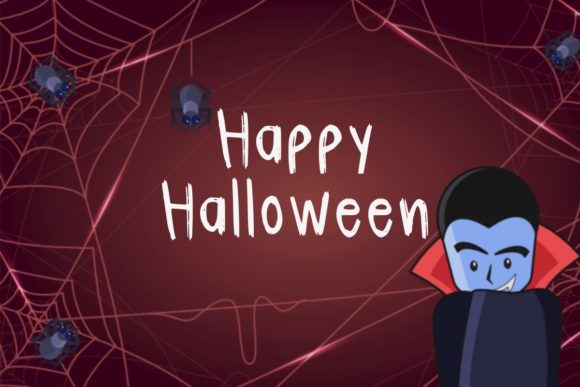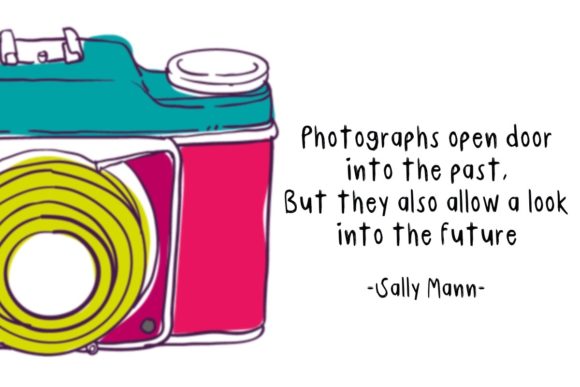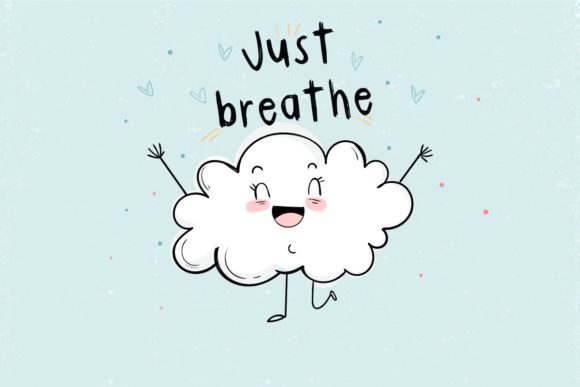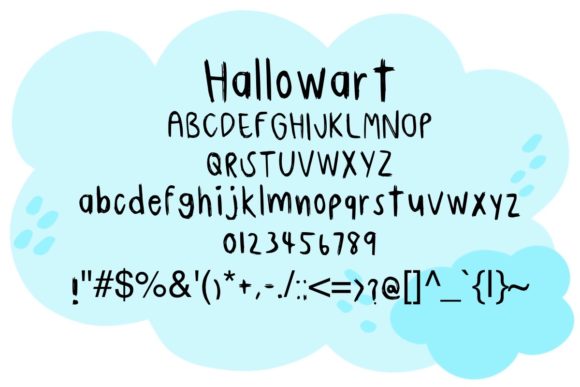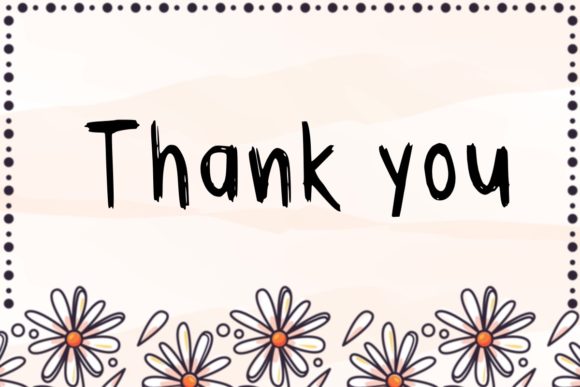
Introduction to Hallowart Font
Have you ever found yourself sitting at your desk, surrounded by papers, pens, and a blank canvas, with a spark of creativity that refuses to be tamed? For many designers, this is the moment when inspiration strikes, and the creative project of a lifetime begins to take shape. And for those who love Halloween, there’s one font that stands out from the rest: the Hallowart Font.
As a design resource, the Hallowart Font offers a unique blend of spooky and friendly vibes that make it perfect for a wide range of creative projects. With its high-quality design and transparent background, this font is a valuable addition to any designer’s toolkit. Whether you’re working on a Halloween-themed project or just need a unique touch for your next design, the Hallowart Font is a free download that’s sure to impress.
- High-quality design resource ideal for creative projects, such as Halloween-themed graphics and illustrations.
- Features a unique, hand-drawn style with a transparent background, making it easy to overlay on various images and designs.
- Perfect for designers and artists looking for a creative, high-quality font to enhance their Halloween-themed designs and projects.
Honest Review: Hallowart Font
I recently came across the Hallowart Font, and I must say it’s a fantastic addition to any designer’s toolkit. As a design resource, it offers a lot of creative possibilities for various projects.
- High quality: The Hallowart Font has a crisp, clean design that’s perfect for both digital and print projects.
- ⚠️ Limited character set: The Hallowart Font only comes with a limited character set, which may not be suitable for projects that require a wide range of characters.
- ⚠️ Not suitable for small text: Due to its bold design, the Hallowart Font may not be the best choice for small text or titles.
Overall, I’m impressed with the Hallowart Font. It’s a great resource for designers working on creative projects, and its free download makes it a must-have for anyone looking to expand their design toolkit.
Hallowart Font is a high-quality design resource that offers a unique and creative way to enhance your visual projects. With its transparent background, this font is perfect for adding a touch of elegance to your designs.
Tips for Getting the Most Out of Hallowart Font
To get the most out of Hallowart Font, try combining it with other design elements such as images, shapes, and colors. Experiment with different font sizes and styles to create a unique and eye-catching design.
Hallowart Font is perfect for creative projects such as:
- Infographic design
- Wedding invitations
Alternatives to Hallowart Font
The Great Vibes Font is a high-quality, cursive font perfect for creative projects that require a touch of elegance. It features a transparent background and is ideal for use in design resources such as logos, posters, and invitations. With its playful and whimsical feel, Great Vibes Font is a great alternative to Hallowart Font for designers looking to add a unique touch to their work.
Compared to Hallowart Font, Great Vibes Font has a more relaxed and casual feel, making it suitable for a wider range of creative projects.
The Alex Brush Font is a high-quality, handwritten font that is perfect for designers looking for a unique and creative touch. It features a transparent background and is ideal for use in design resources such as posters, flyers, and business cards. With its elegant and sophisticated feel, Alex Brush Font is a great alternative to Hallowart Font for designers looking to add a touch of class to their work.